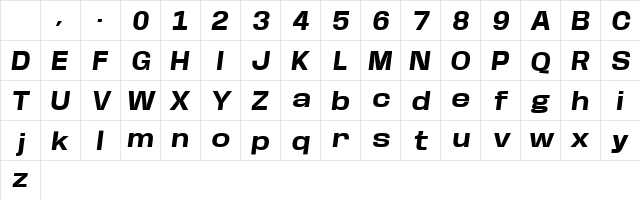
Complete Base Neue Wide Obl Bold Italic glyph index. Displaying only characters natively supported by Base Neue Wide Obl Bold Italic font.
Base Neue Wide Obl is a composed and adaptable typeface that performs quietly and consistently across a wide range of design contexts. The slanted form adds forward momentum and visual energy. Its bold stroke weight gives it real presence on the page.
Pro Tip: Use Base Neue Wide Obl for emphasis, pull quotes, and subheadings where its slanted energy can add rhythm to the layout.